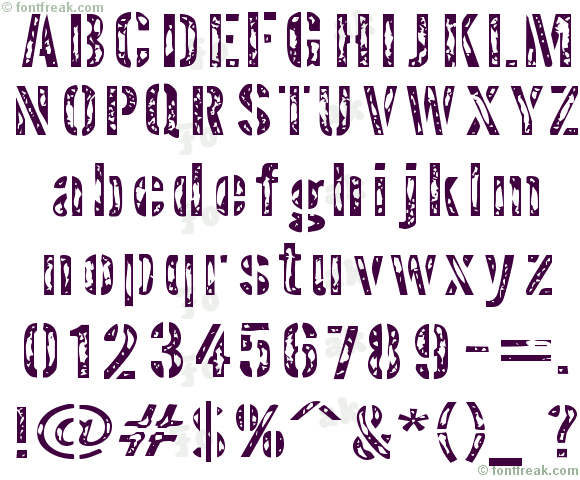
Interplanetary Crap
Interplanetary Crap is a unique display font created by Ray Larabie in 1998, characterized by its playful and eccentric design. As a decorative typeface, this font captures the imagination with its whimsical forms and unconventional structure. The strokes are bold and uneven, creating a sense of movement and fun that draws attention. The spacing is varied, adding to the quirky nature of the font, while the decorative elements evoke a sense of intergalactic adventure, perfectly fitting its name.
This font is ideal for a variety of creative applications. It works wonderfully for science fiction-themed movie posters, inviting viewers to explore otherworldly narratives. Additionally, Interplanetary Crap is perfect for children's book covers, where its playful design can captivate young readers. It can also be effectively used in promotional materials for quirky events or festivals, where a light-hearted approach is desired. For graphic designers looking to add a touch of humor and whimsy to their projects, this font serves as an excellent choice.
What sets the Interplanetary Crap font apart is its distinctive style that combines humor with a bold visual presence. It invites creativity and experimentation, making it a delightful addition to any designer's toolkit. Whether you're crafting eye-catching advertisements or playful invitations, the Interplanetary Crap font free download provides a unique solution to enhance your designs.